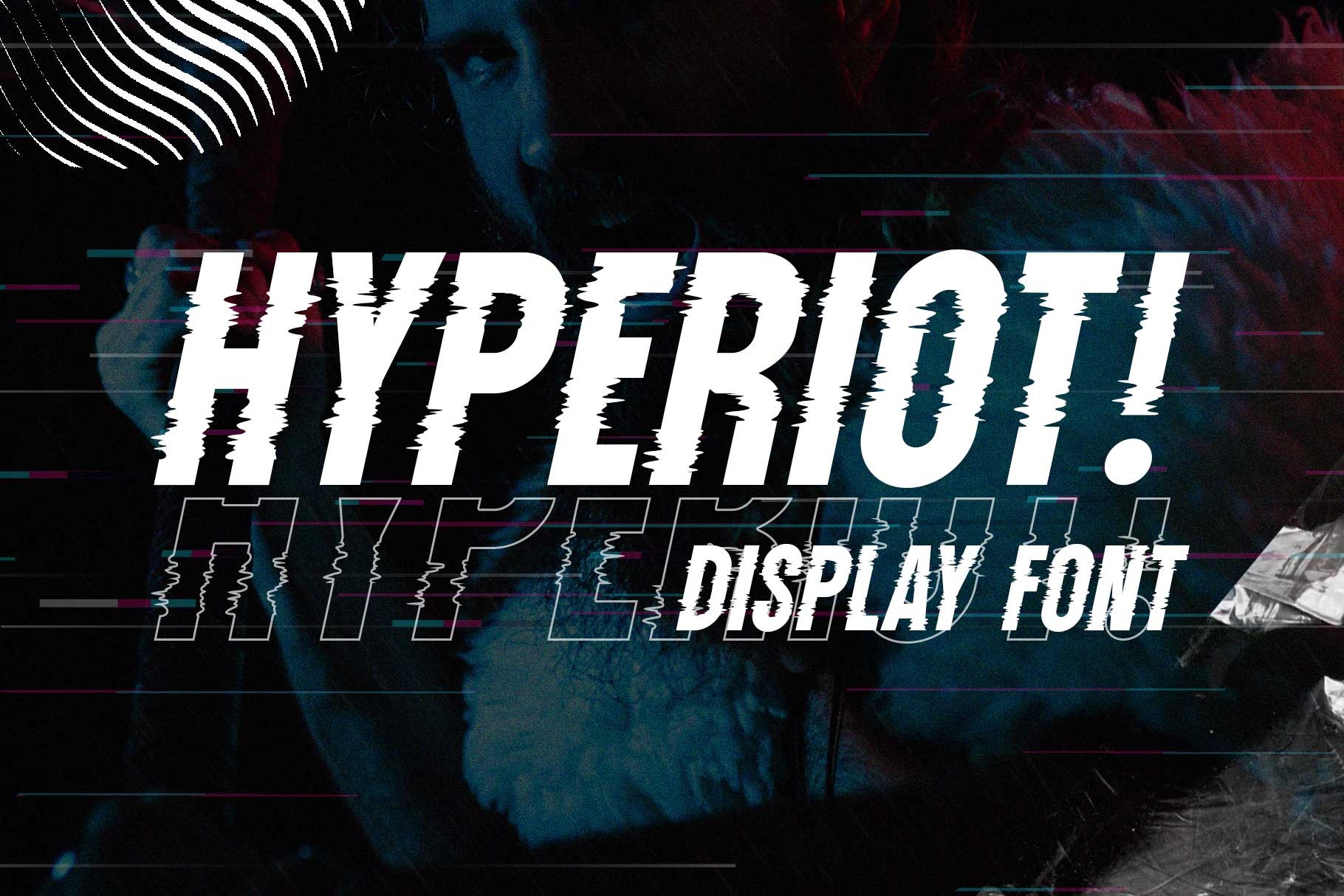
Hyperiot Font
About Hyperiot
Introducing Hyperiot, an experimental condensed font that draws inspiration from brutalism and glitch styles. This unique typeface is designed with a randomized glitch effect, creating a uniqueness and attention-grabbing aesthetic, making it perfect for your design projects in various themes such as digital, sports, techno, futuristic, or urban style.